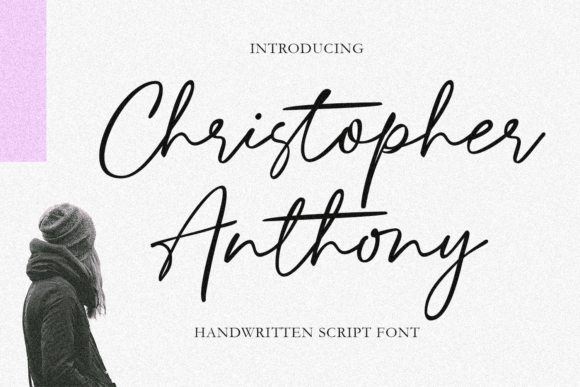
Feast your eyes on Christopher Anthony Font, a breathtaking creation from Nun Creatype, destined to enhance your designs with an air of elegance and charm. Its meticulously crafted glyphs, brimming with personality and grace, will transform your words into captivating works of art.
Immerse yourself in the world of visual delight as Christopher Anthony's flowing strokes and organic curves dance across your screen. This mesmerizing script font, inspired by the beauty of handwritten letters, evokes a sense of timelessness and authenticity that will leave you spellbound.
Whether you're a seasoned designer or just starting your creative journey, Christopher Anthony will effortlessly elevate your projects to new heights of sophistication. Its versatility knows no bounds, making it the perfect choice for a myriad of applications, from wedding invitations and branding to logos and social media graphics.
Step into a world of endless possibilities with Christopher Anthony. Its enchanting allure will captivate your audience, leaving them spellbound by the beauty of your designs. Unleash your creativity and embark on a journey of visual exploration, where every stroke of the pen is a testament to your artistic vision.